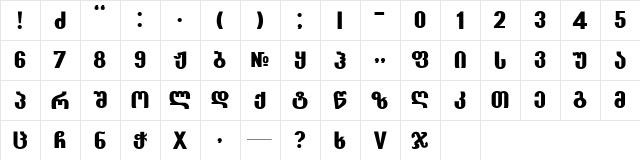
Grotesky-ITV Bold
Design Context for Grotesky-ITV Typeface
Grotesky-ITV has the quiet confidence of well-executed sans-serif typography: versatile, unobtrusive, and dependable at any size. The heavy weight commands attention and anchors typographic hierarchies.
A strong choice for UI design, app interfaces, bold signage, and corporate brand systems.
Font Pairing: Use Grotesky-ITV for headlines alongside a lighter-weight sans or serif for body copy to establish clear visual hierarchy.
Pro Tip: Pair Grotesky-ITV with a display or serif font for headlines — its neutral character makes it an excellent supporting player in complex typographic systems.